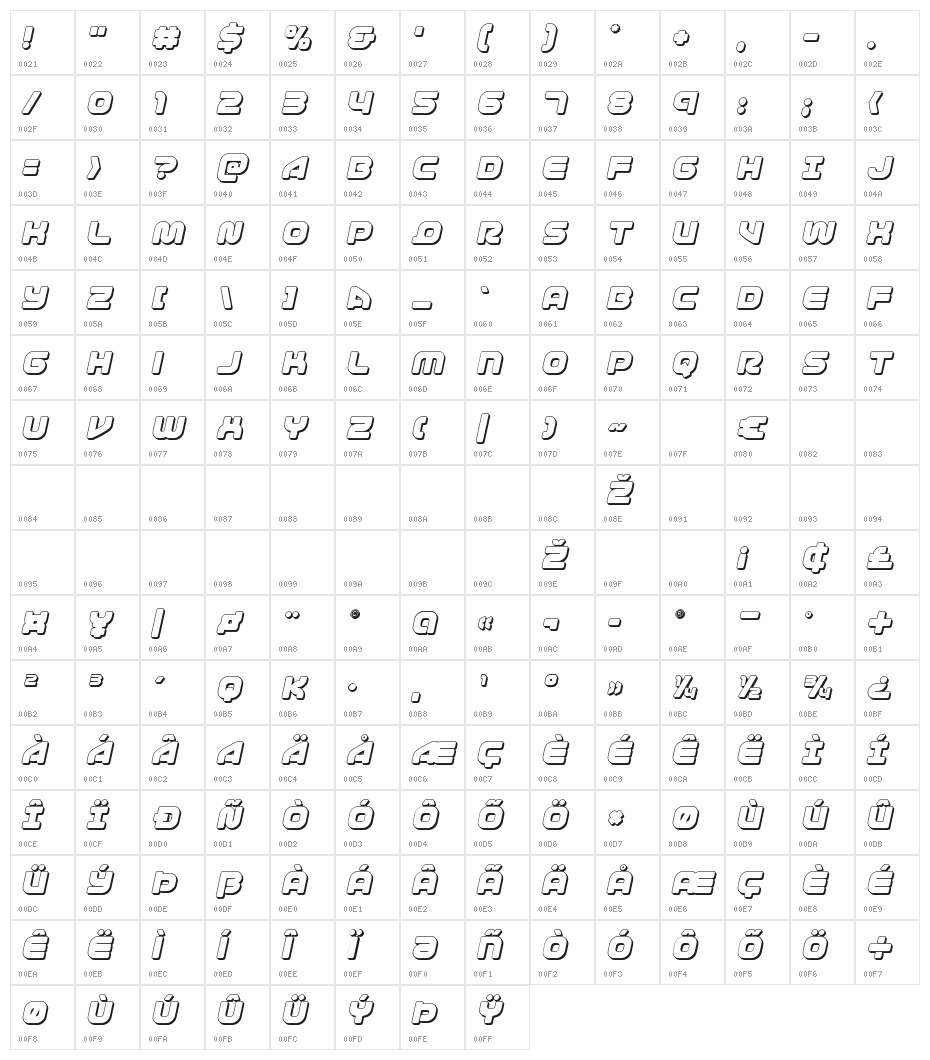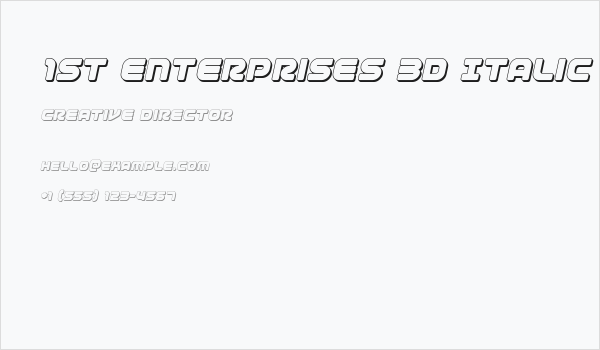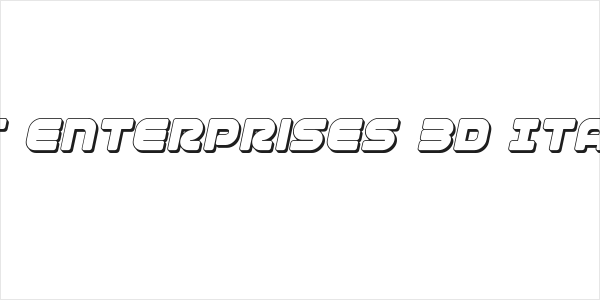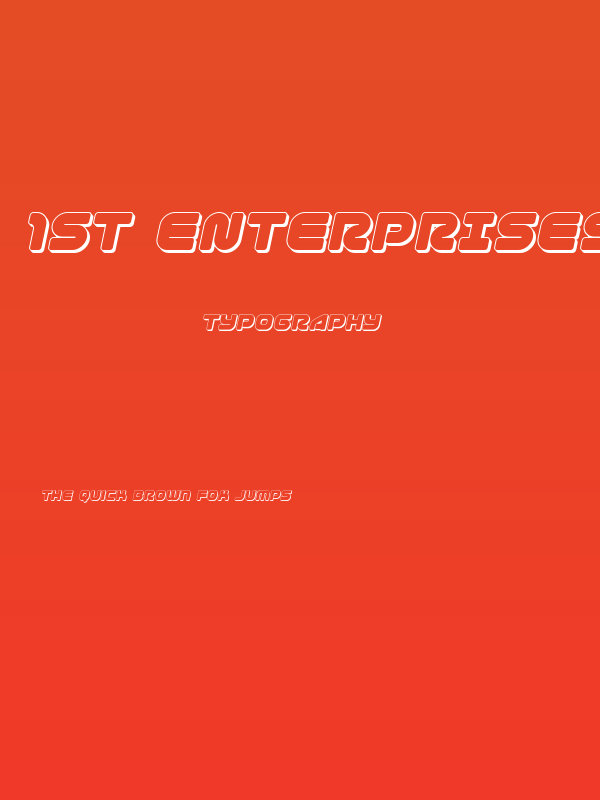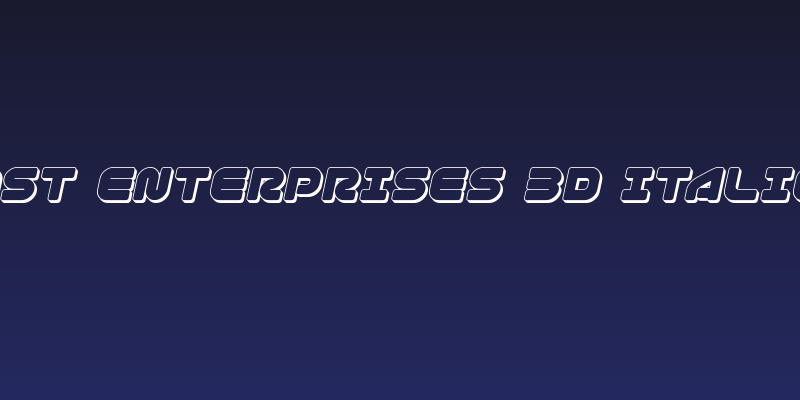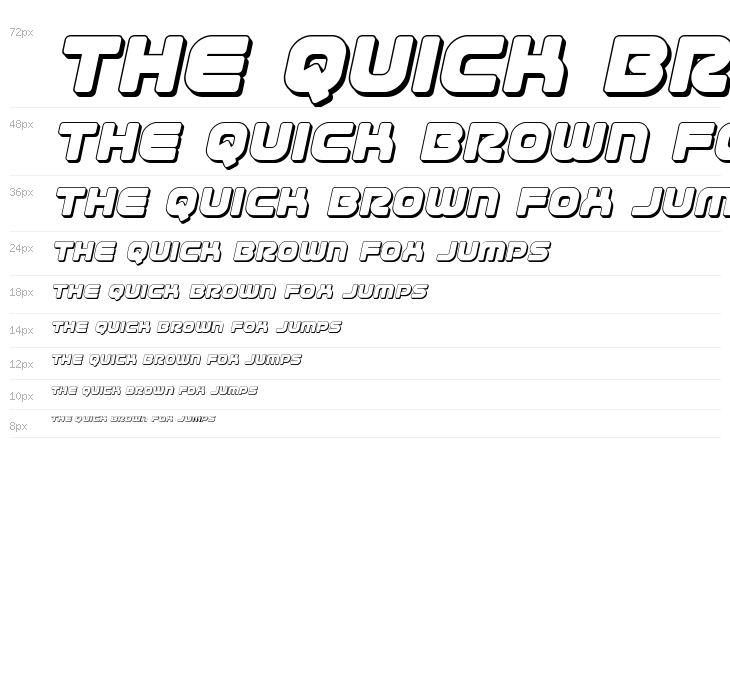
1st Enterprises 3D Italic Font
1st Enterprises 3D Italic Description
This font features a bold, three-dimensional appearance with an italic slant, giving it a dynamic and modern look. The characters are outlined, creating a hollow effect that adds depth and visual interest. The uppercase and lowercase letters maintain a consistent style, with rounded edges and a uniform thickness throughout. The numbers and special characters follow the same design principles, ensuring a cohesive appearance across all elements. This font's unique style makes it stand out, suitable for projects that require a strong visual impact.